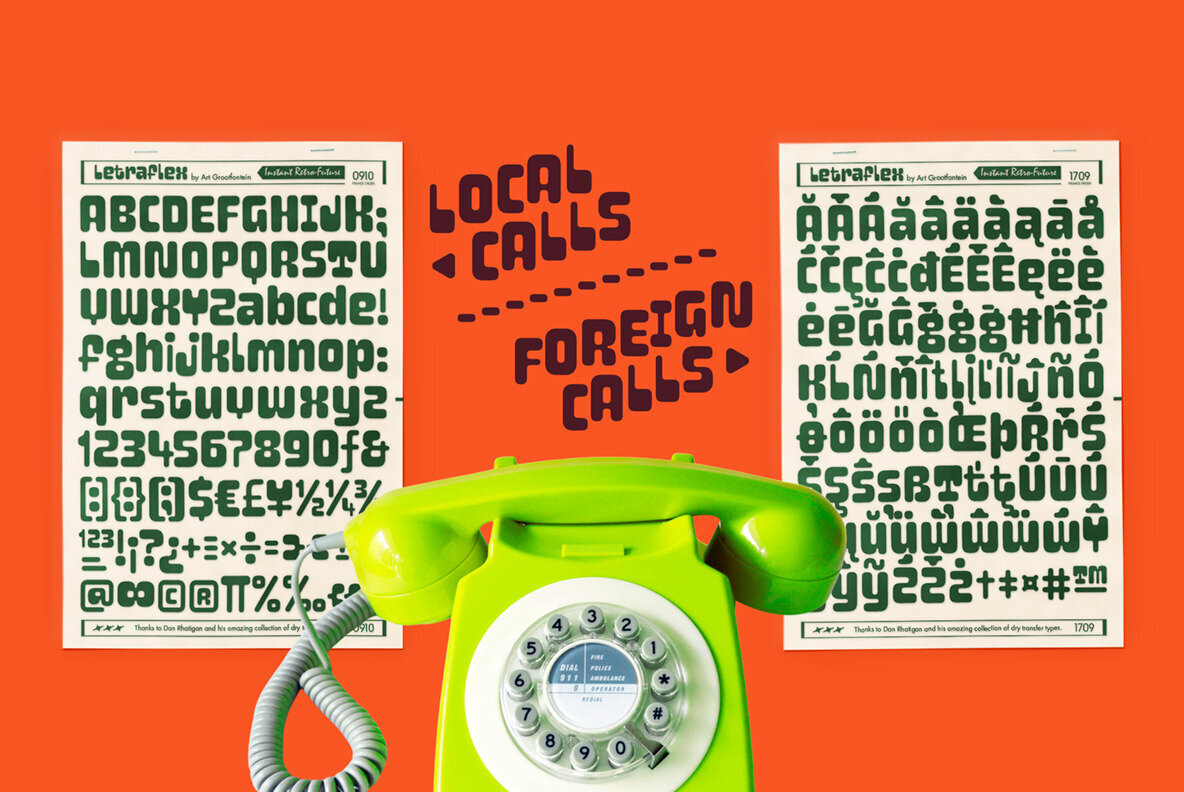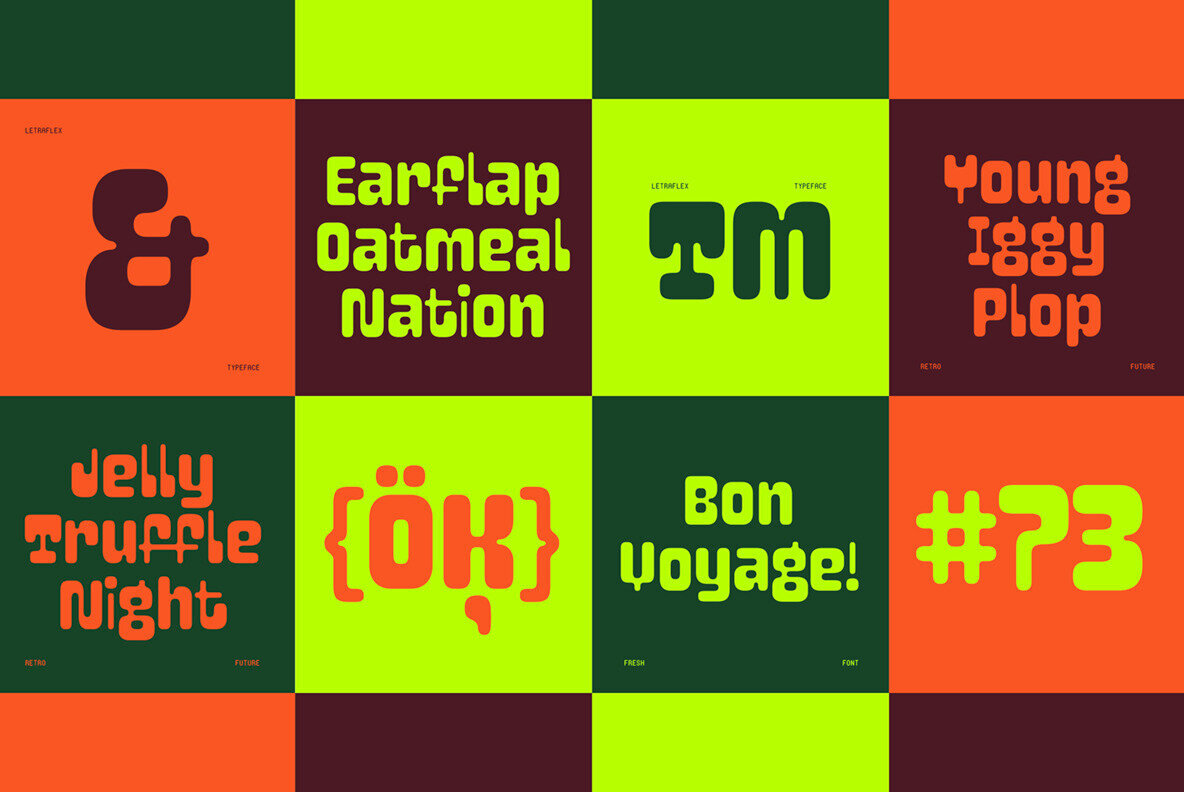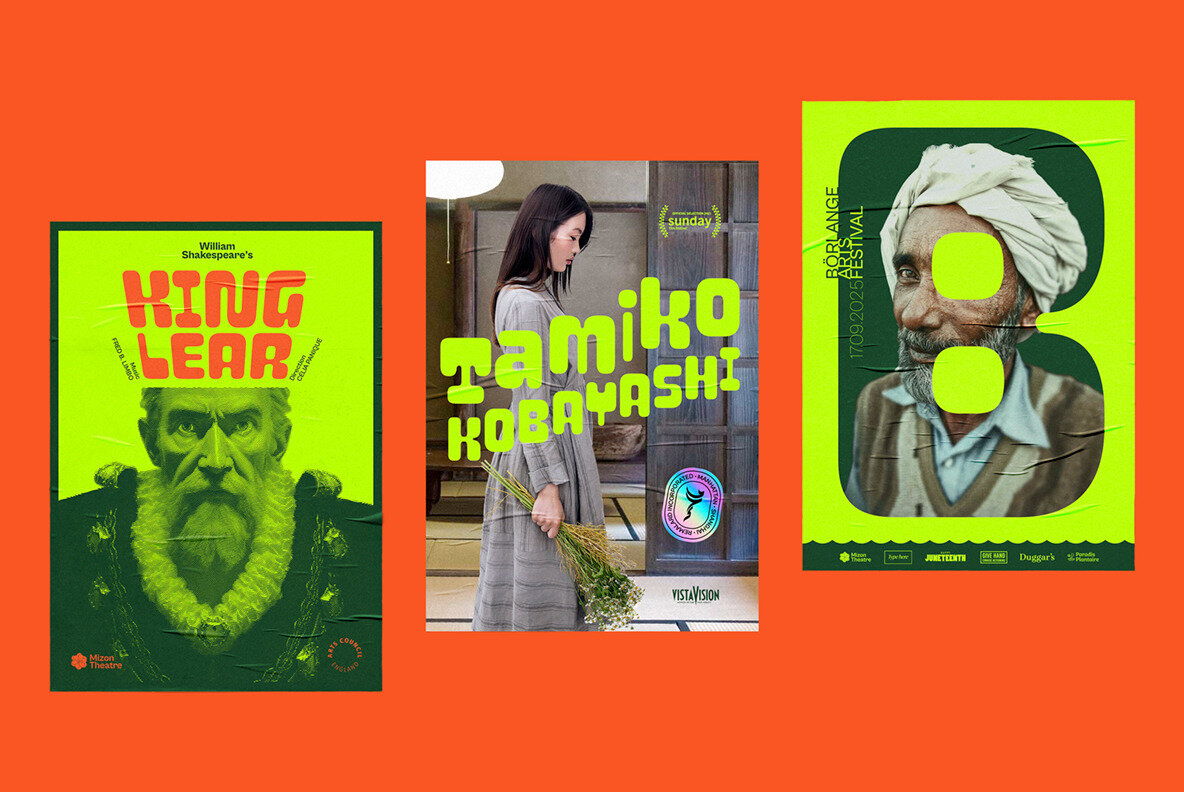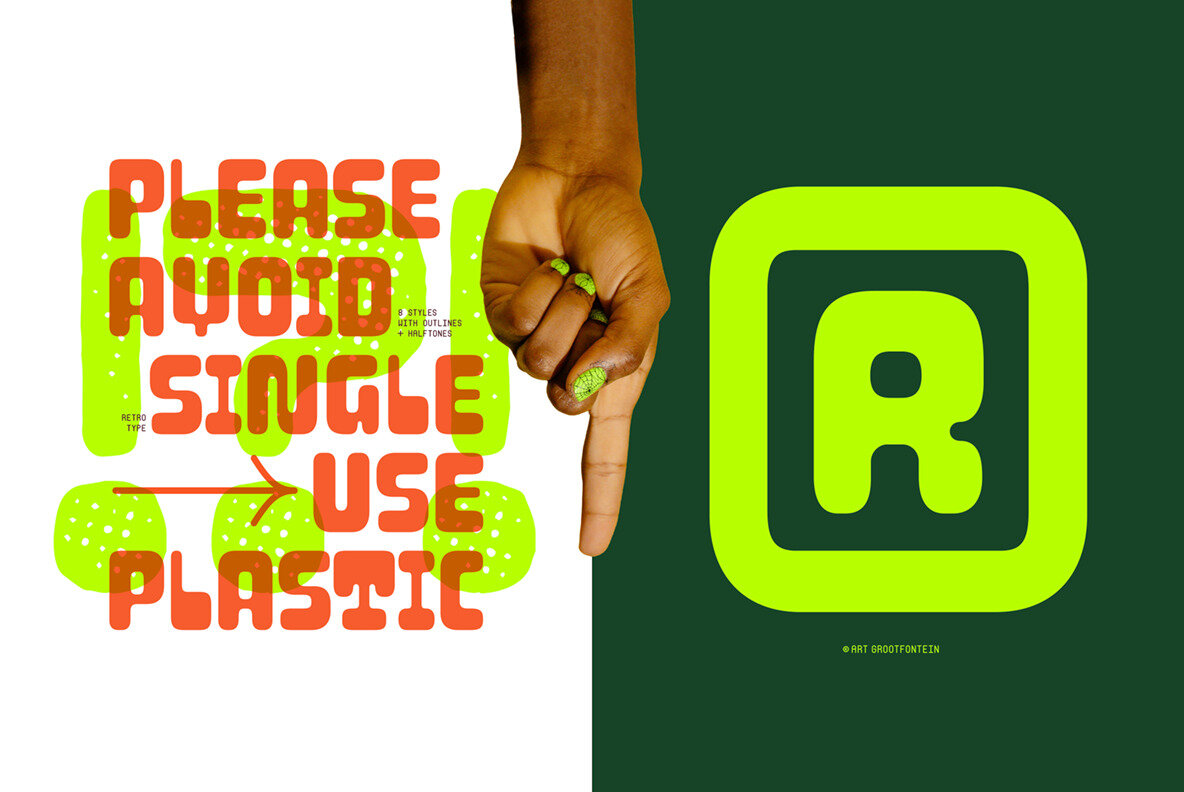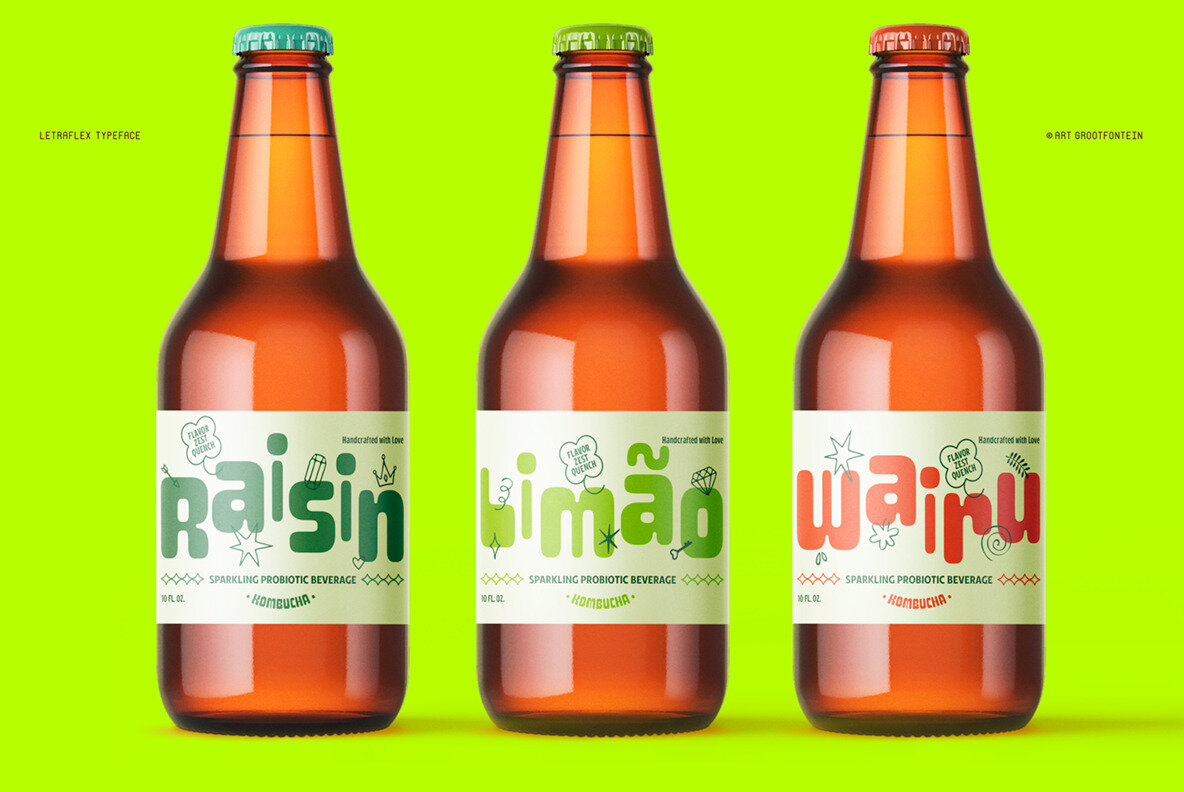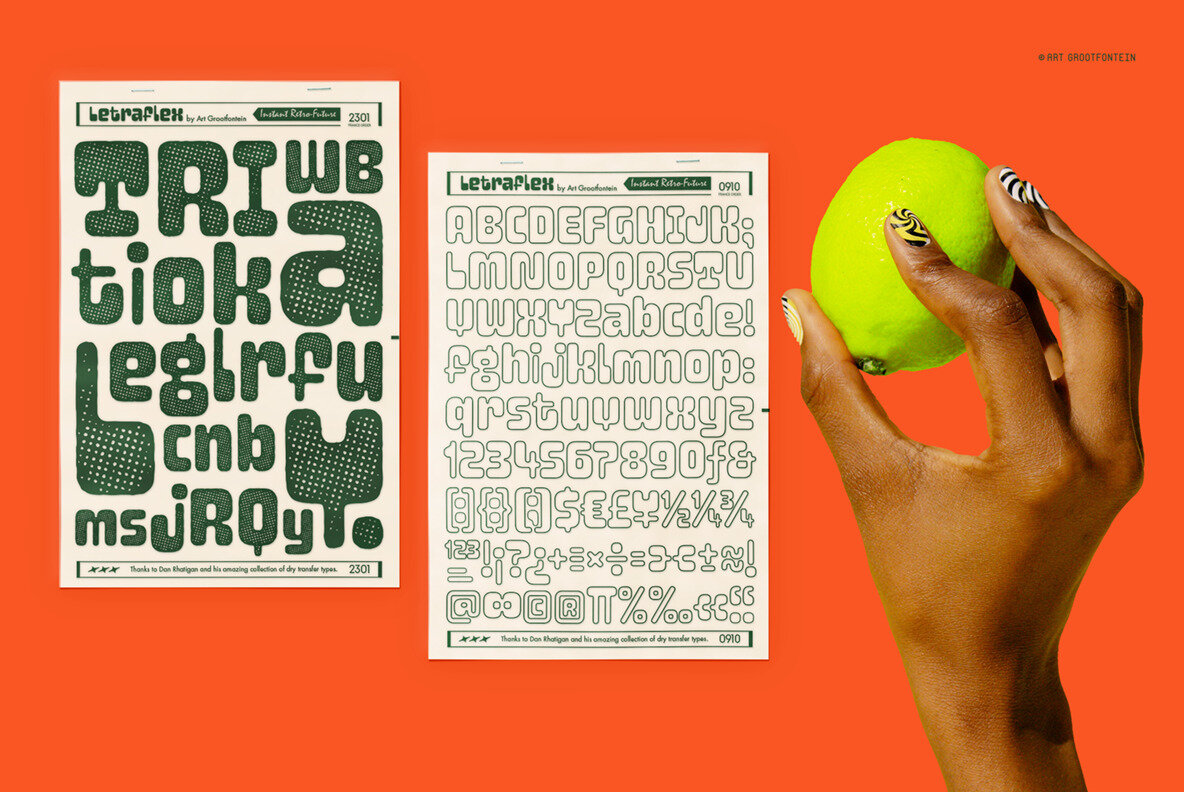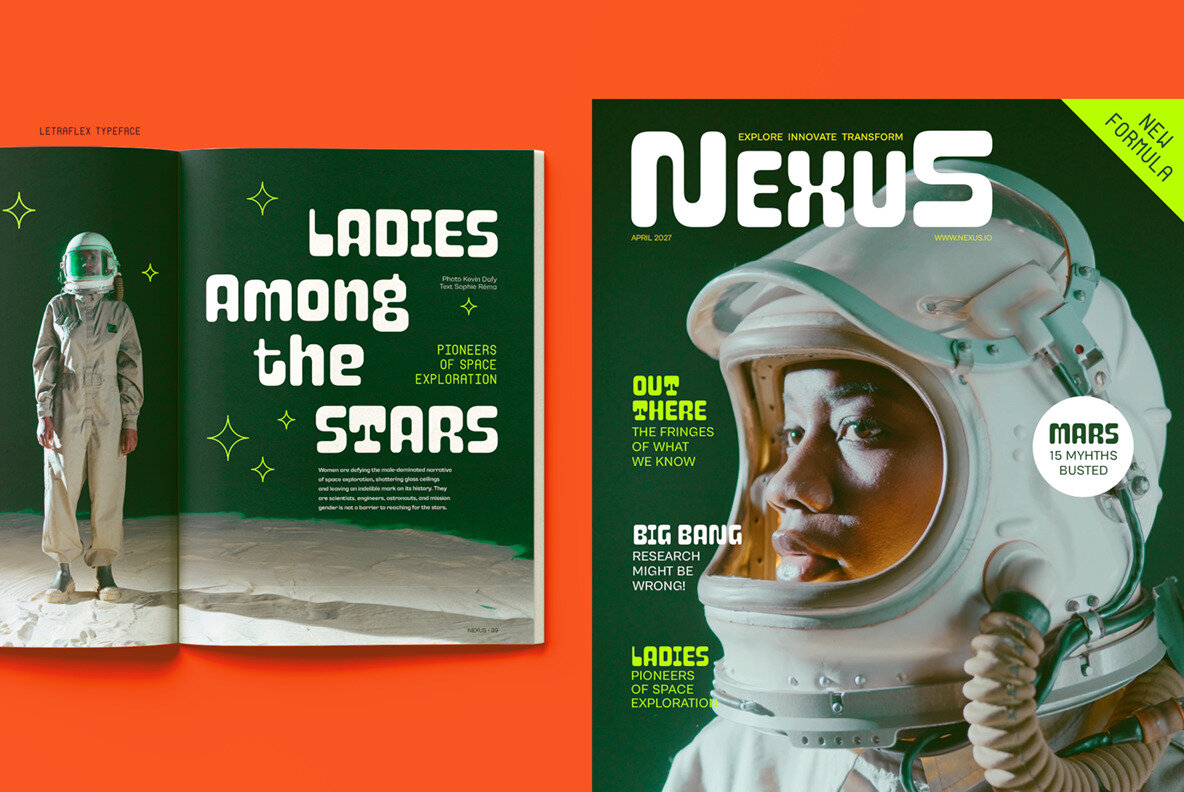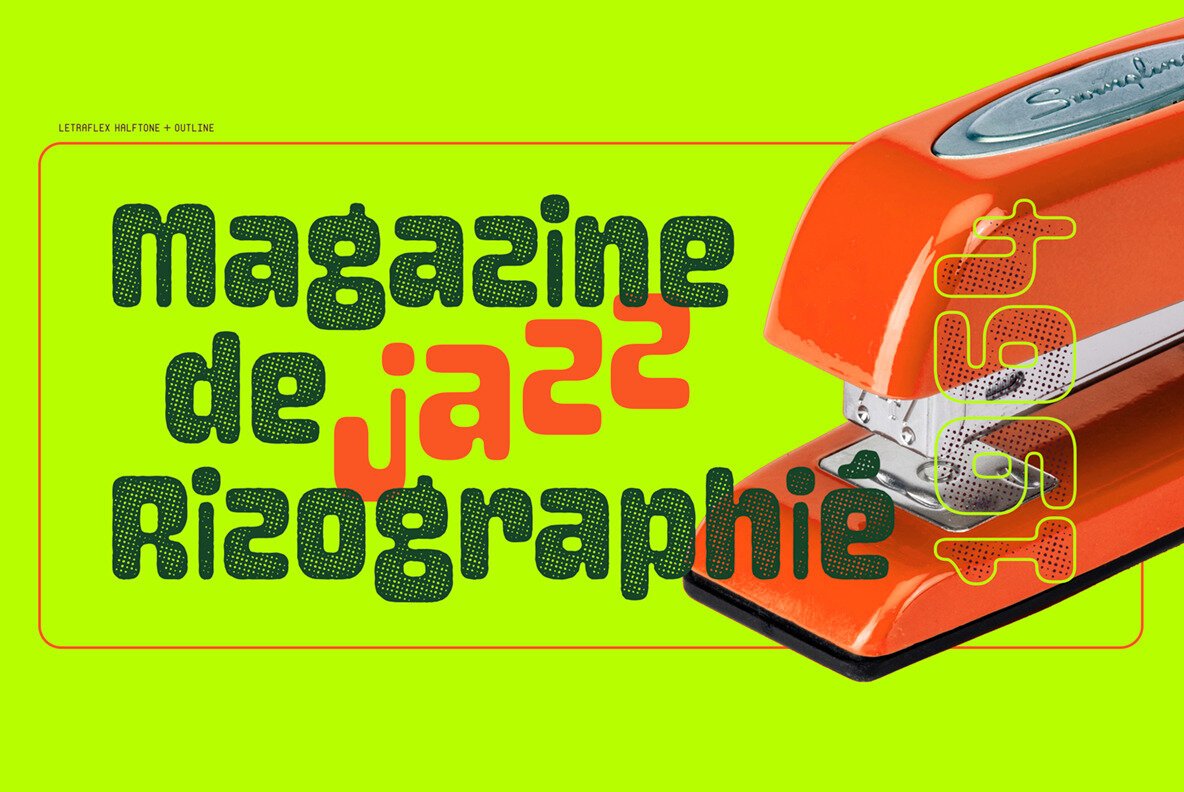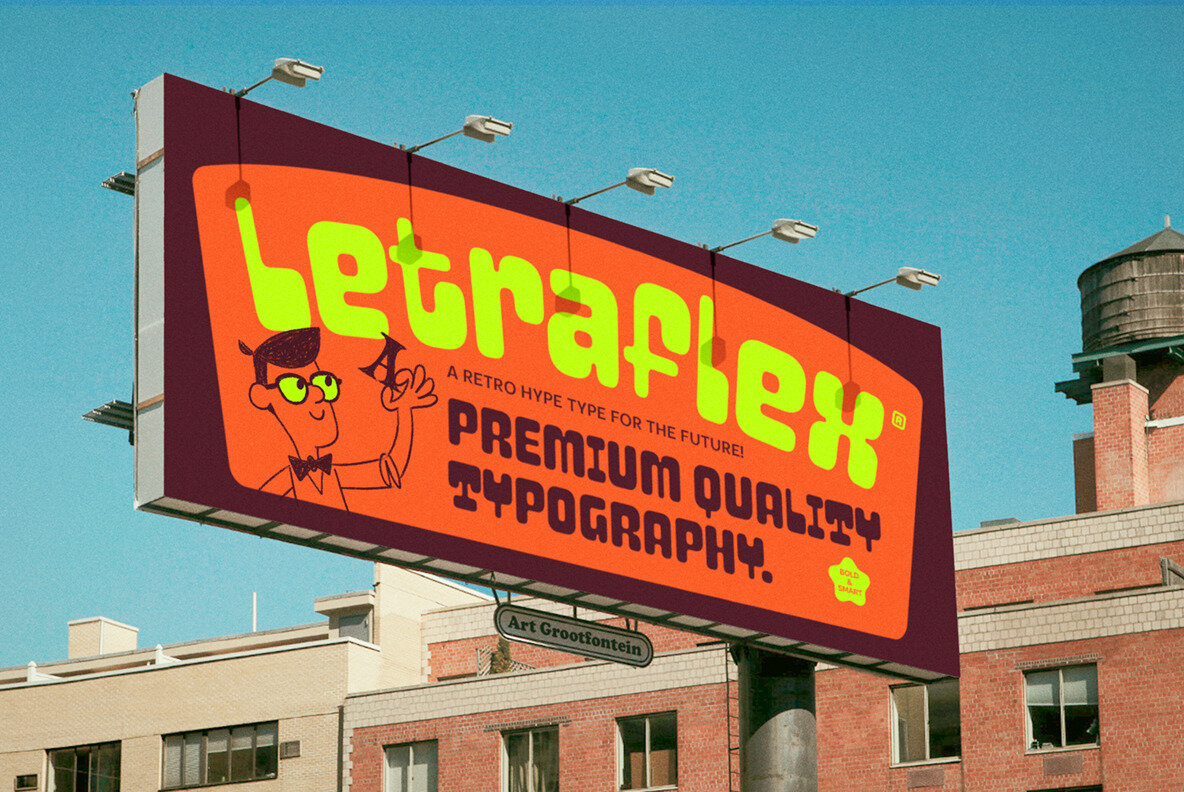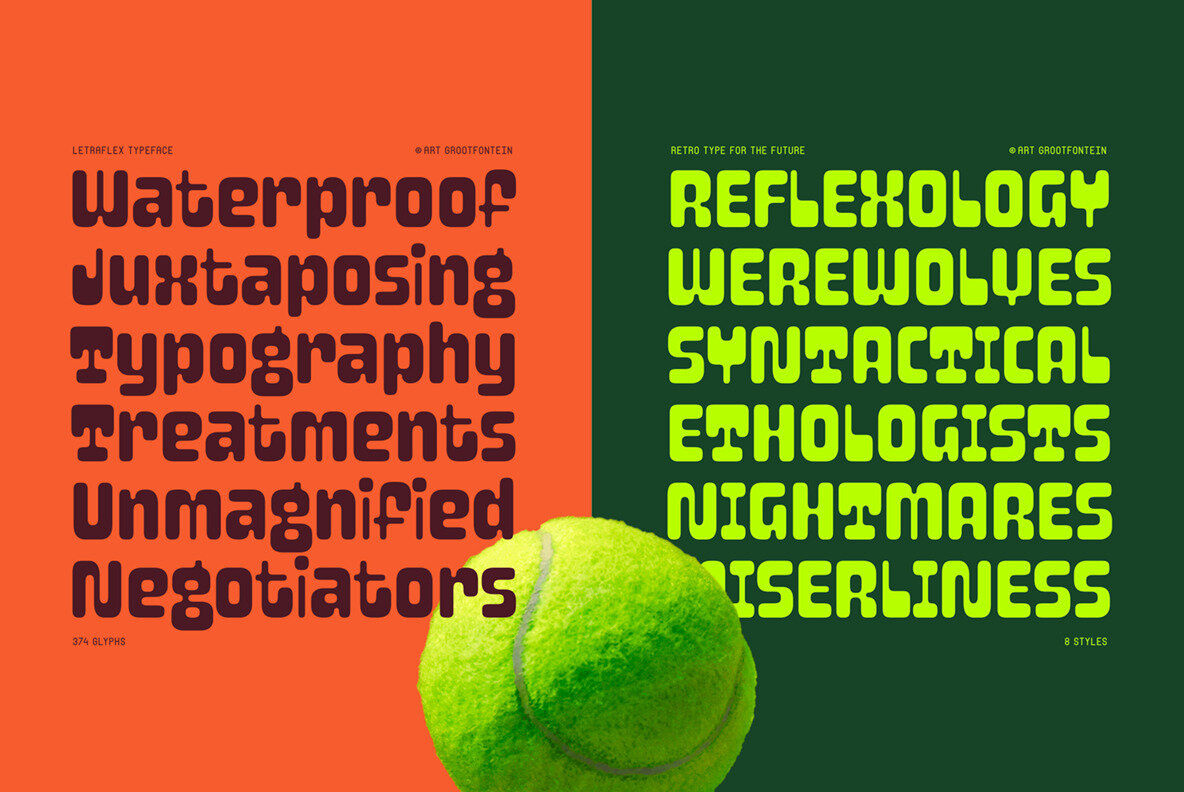
Letraflex Font
A retro hype type for the future! Letraflex is a bold typeface that combines retro inspiration with a futuristic flair. This unique family draws from old computer lettering and Magnetic Ink Character Recognition (MICR), enhanced with modern touches like elegant ink traps. Letraflex offers a diverse selection of layered fonts, providing flexibility for any design project. It's an ideal choice for creating striking visuals, whether in headlines, posters, branding, logos, or concert themes. Explore Letraflex in action; watch the accompanying video to see how this typeface brings designs to life.Letraflex: Bold Retro-Inspired Typeface with a Futuristic Edge
Versatile Layered Fonts